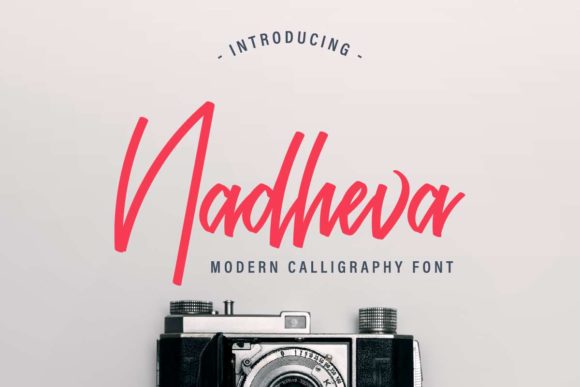
Unleash the captivating charm of Nadheva, a script font family that will transform your creative visions into breathtaking realities. Inspired by the timeless elegance of handwritten notes, Nadheva exudes a delicate and distinct character that adds a personal touch to every project.
Adorn your wedding invitations and thank-you cards with the graceful strokes of Nadheva, leaving a lasting impression on your loved ones. Its varying baseline and smooth lines create a dynamic rhythm, while the gorgeous glyphs and stunning alternates add a touch of exclusivity to your designs.
With Nadheva, your quotes and greeting cards will radiate warmth and sincerity, captivating the hearts of your readers. Its handwritten charm breathes life into logos and business cards, creating a lasting connection with your clients.
Nadheva's versatility extends beyond traditional mediums, making it a perfect choice for digital designs. Its delicate nature complements social media posts, website banners, and e-commerce platforms, adding a touch of sophistication to your online presence.
Embrace the timeless beauty of Nadheva and elevate your designs to new heights. Its PUA encoding ensures effortless access to all glyphs and swashes, making customization a breeze. Unleash your creativity and let Nadheva guide you towards masterpieces that resonate with grace and elegance.